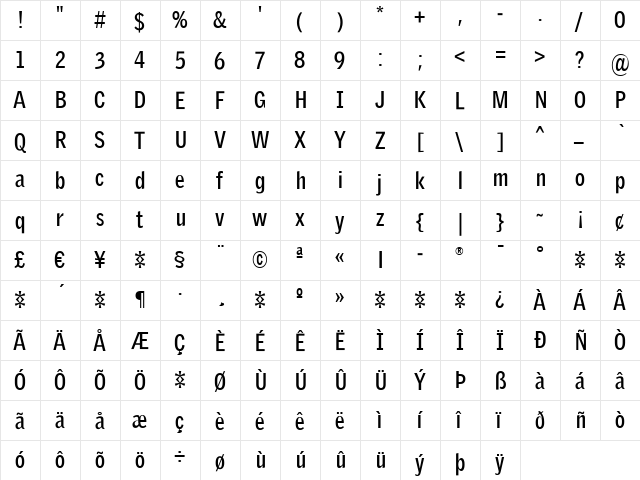
GriffithGothicCond Regular
Design Context for GriffithGothicCond Typeface
GriffithGothicCond has the quiet confidence of well-executed sans-serif typography: versatile, unobtrusive, and dependable at any size. Its narrow stance lets it pack a punch even in space-constrained designs.
Font Pairing: Works well alongside a characterful serif or display font that can carry the expressive load while GriffithGothicCond handles the functional copy.
Pro Tip: Try GriffithGothicCond in all-caps with moderate tracking for navigation and label copy — it performs well in systematic UI contexts.